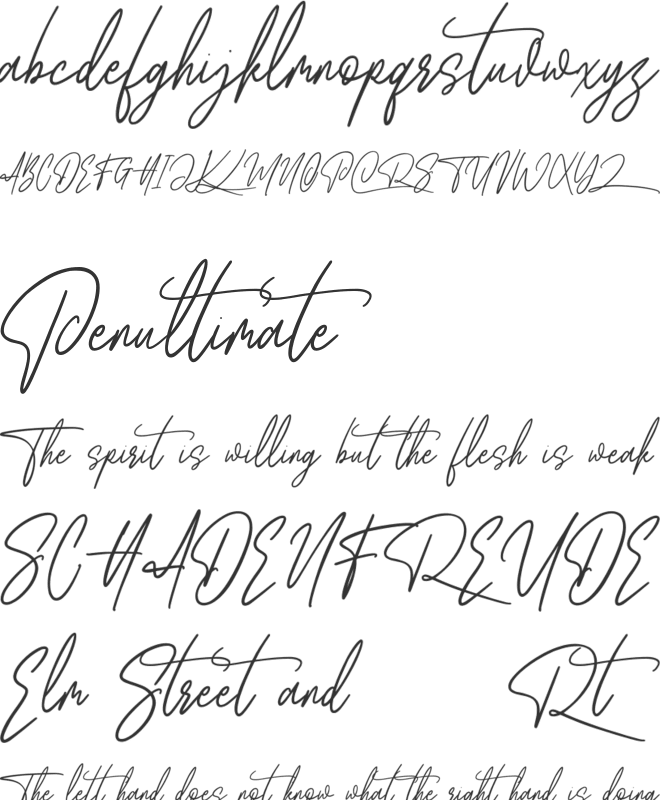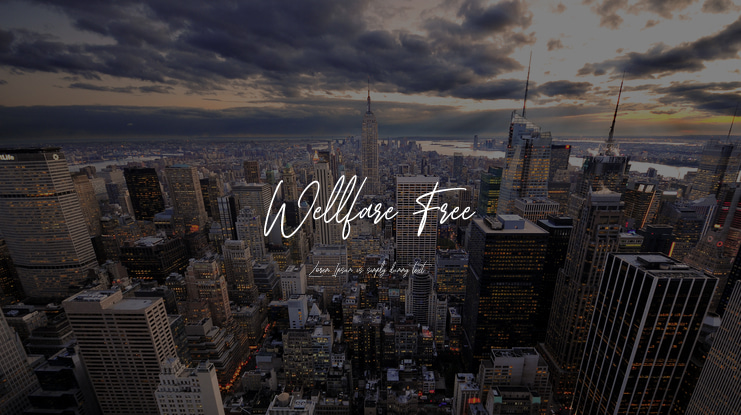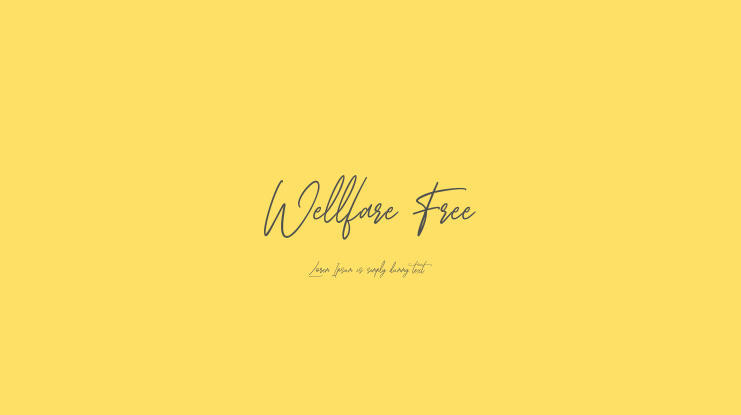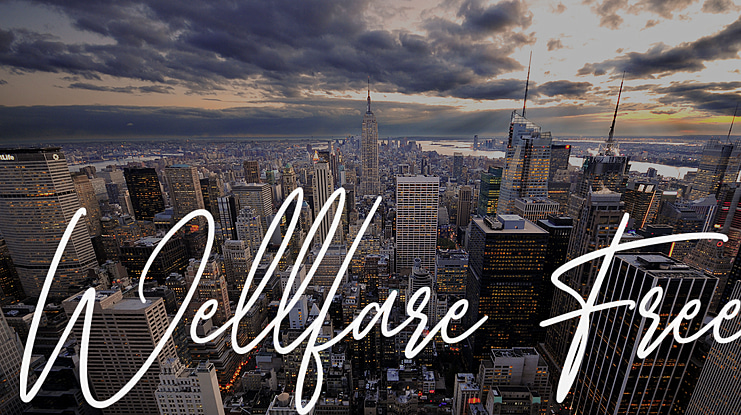
Wellfare Free Font
**Wellfare Handwritten Swash Font** consisting of a fashionable sophisticated signature-style script with its own unique curves and an elegant inky flow.